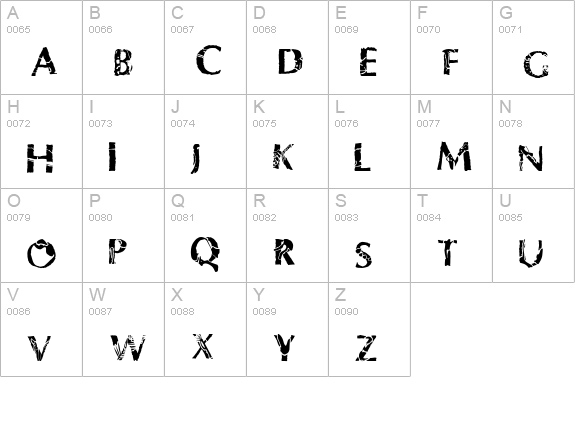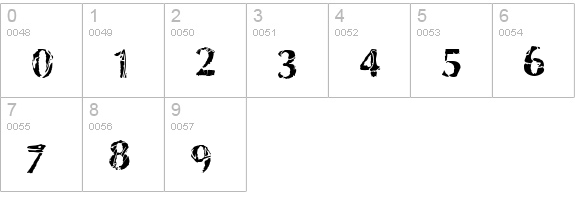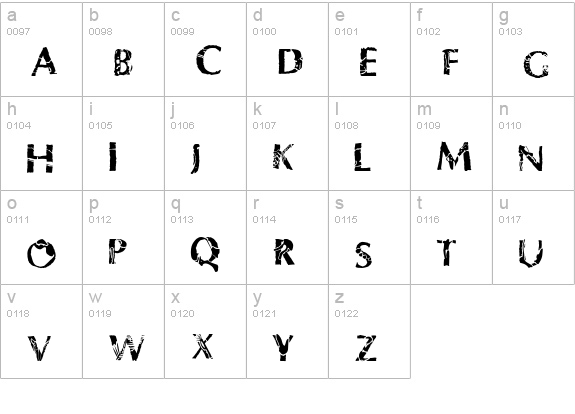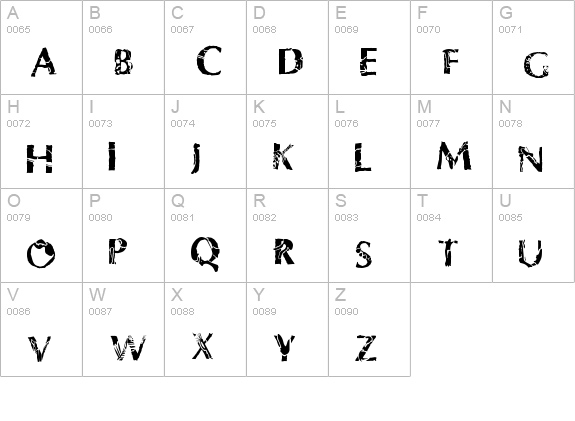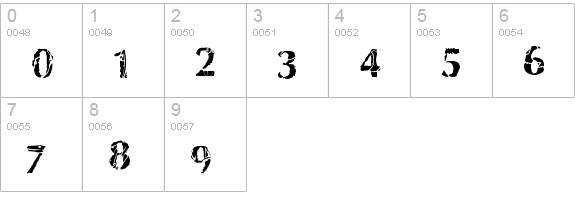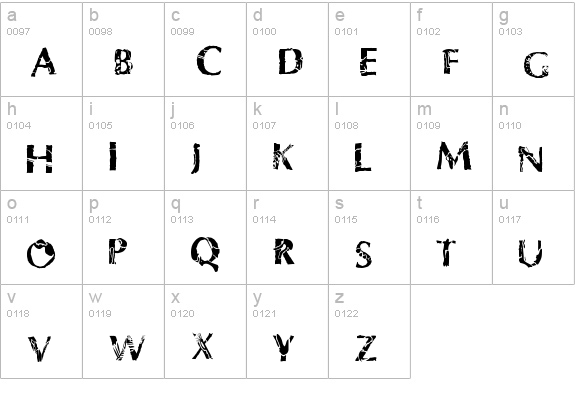
Introducing the captivating and whimsical Dinosaur Fontasaurus Text font! This unique font is a playful and imaginative creation inspired by the prehistoric era. With its quirky dinosaur-themed design, this font is perfect for adding a fun and adventurous touch to your projects. Whether you're working on a children's book, a party invitation, or a branding project, Dinosaur Fontasaurus Text font is sure to make a bold statement. The best part? Dinosaur Fontasaurus Text font is available for free download at FontsMarket.com. This means you can easily access this charming font and start incorporating it into your designs right away. Embrace your inner explorer and bring a touch of the Jurassic period to your creations with Dinosaur Fontasaurus Text font today!